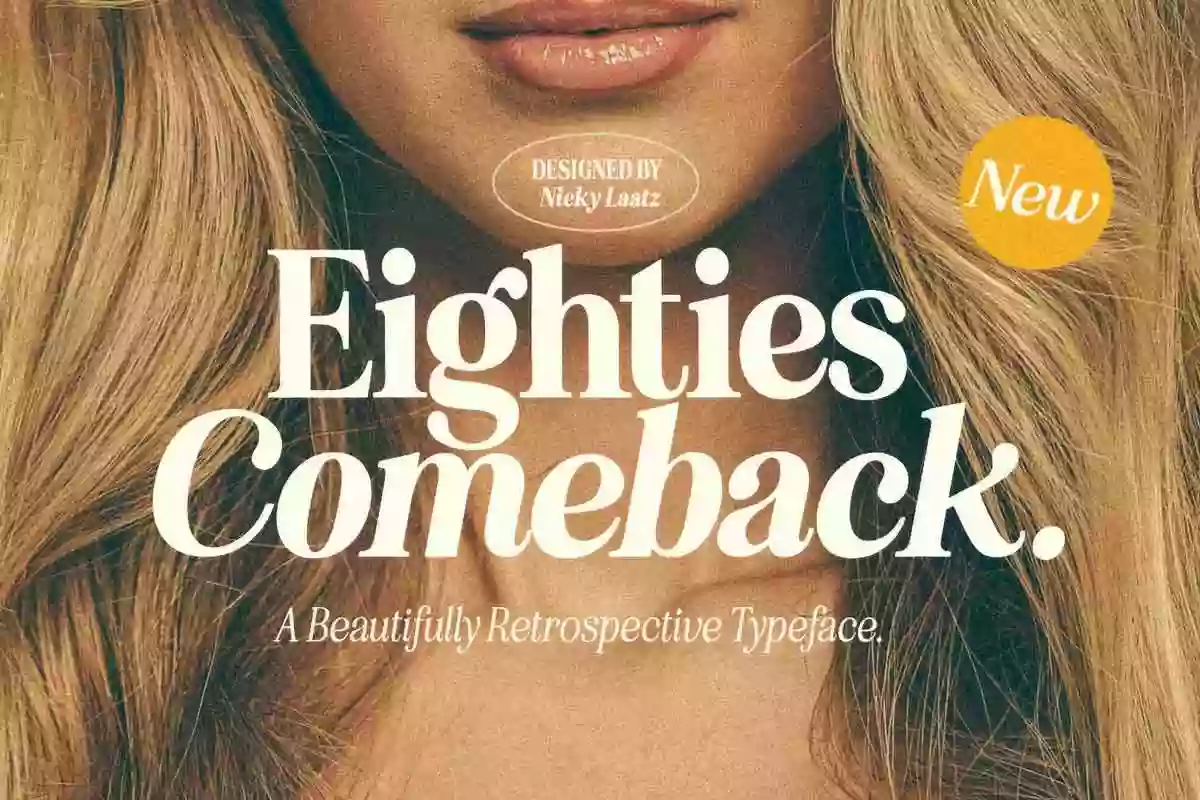
Eighties Comeback Font is a fun, flirty, and highly versatile serif font typeface inspired by the bold aesthetics of 70s and 80s magazine ads. This retro-modern font family includes 70 unique styles, featuring both regular and italic versions. With a range of weights from light to extra black and widths from ultra-condensed to ultra-expanded, it provides endless creative possibilities. Whether you’re designing logos, posters, or social media graphics, this font adds a nostalgic yet fresh touch to any project.
For those using Adobe Photoshop or Illustrator CC 2020 and later, Eighties Comeback also offers two convenient variable fonts for seamless design flexibility. Its dynamic nature makes it a true Swiss Army knife among typefaces, perfect for capturing vintage charm with a contemporary edge. Whether you’re aiming for a bold statement or subtle retro vibes, this font is your go-to choice for standout designs.
Eighties Comeback Font